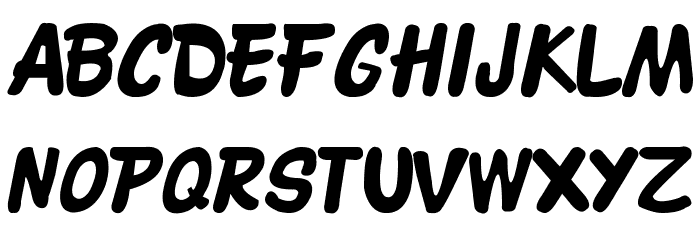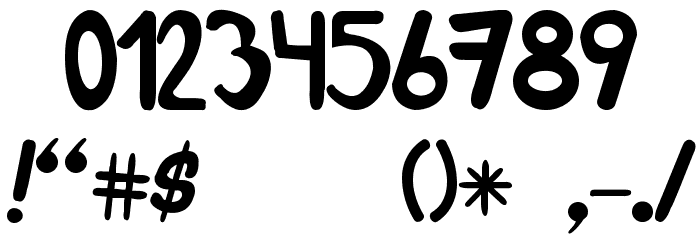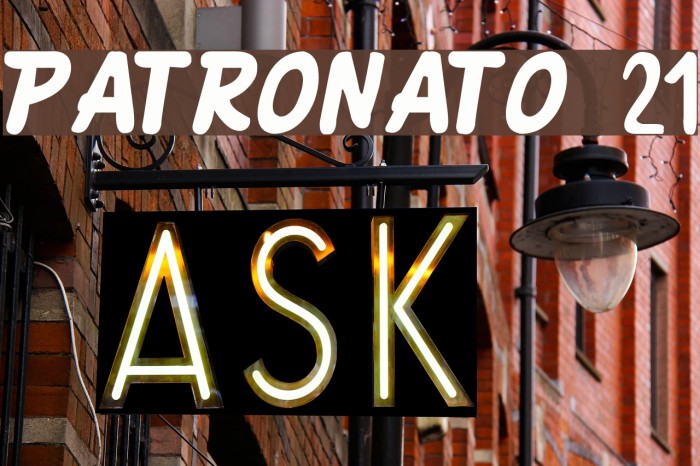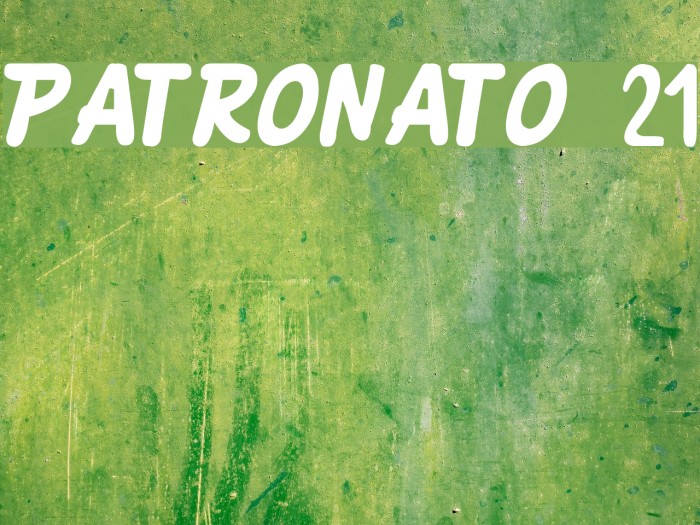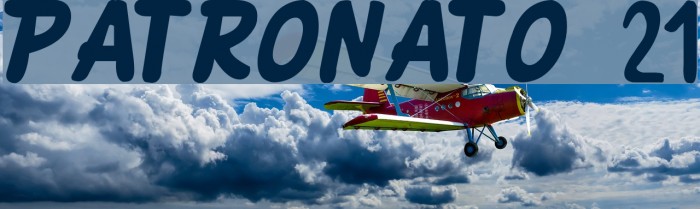
PATRONATO 21 Font
This font features a bold, playful script style with a handwritten appearance. The characters are rounded and slightly slanted, giving a dynamic and energetic feel. The uppercase letters are consistent in height, while the lowercase letters maintain a smooth flow with distinctive loops and curves. Numbers are bold and easily readable, matching the overall style of the alphabet. Special characters are creatively designed, maintaining the playful essence of the font. The strokes are consistent in thickness, providing a uniform look across all characters.
A bold, playful script font with a handwritten style.
- Proposed Projects: Ideal for greeting cards, playful branding, children's books, and casual invitations.
- Overall Style: Playful, Casual
- Use Case: Logos, Headlines, Invitations